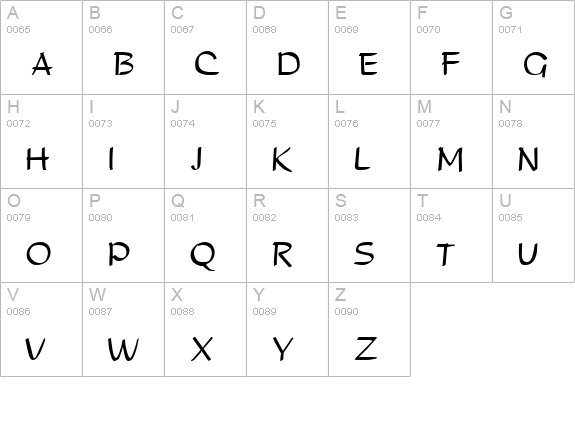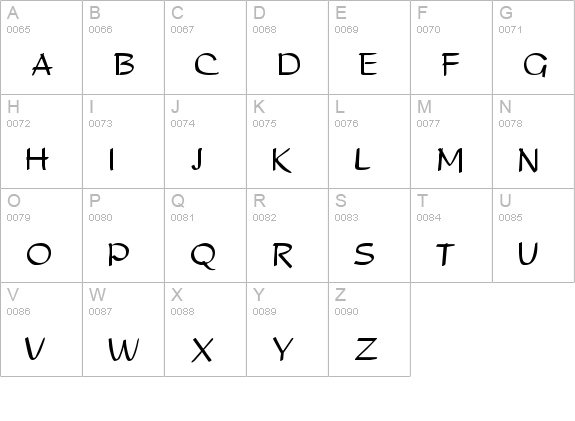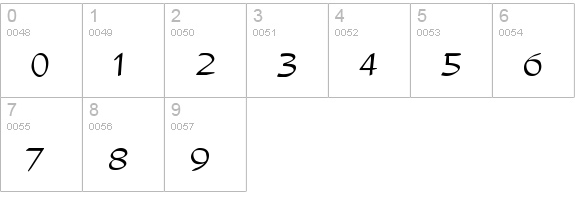
Kismet Font Details
Introducing Kismet font, a beautifully crafted typeface that exudes elegance and sophistication. With its sleek lines and modern design, Kismet font is the perfect choice for projects that require a touch of class. Whether you're designing a wedding invitation, a logo, or a website, this versatile font will elevate your work to the next level. What's even better is that Kismet font is completely free! Yes, you read that right. You can download this stunning font at FontsMarket.com without spending a single penny. Don't miss out on this opportunity to add a touch of luxury to your designs with the Kismet font. Download it today and let your creativity shine!